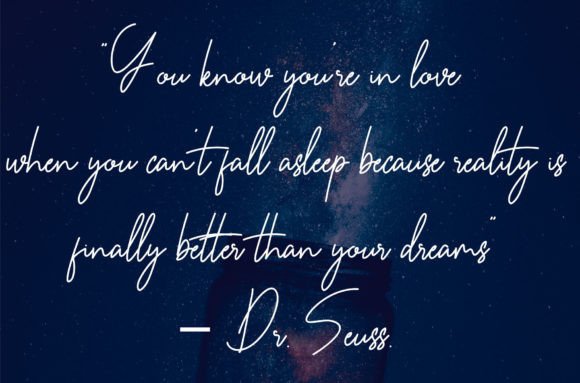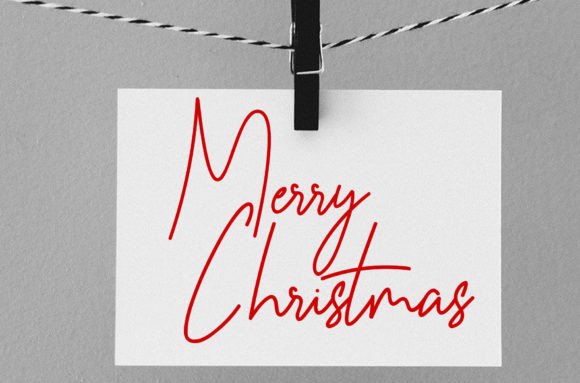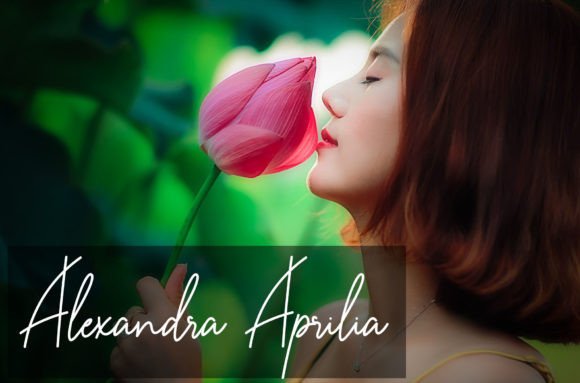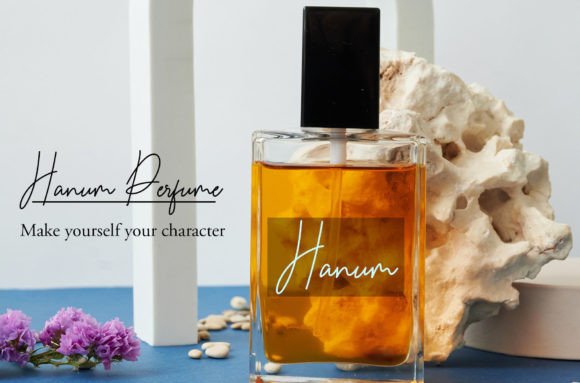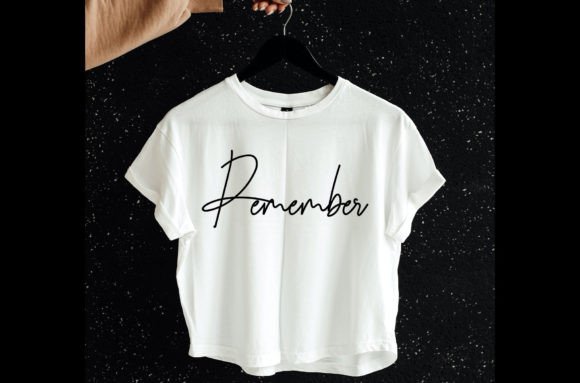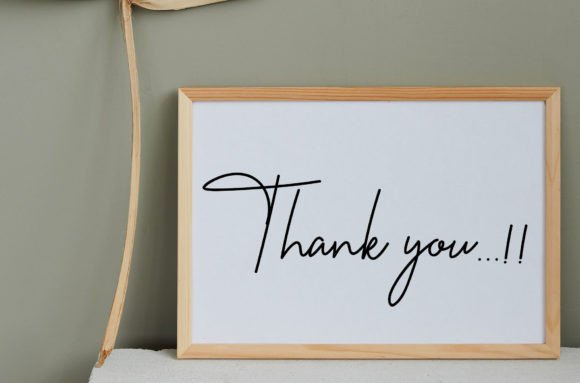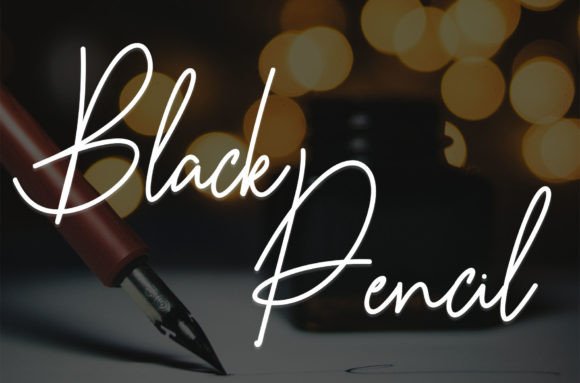
Introducing Black Pencil Font: Elevate Your Designs with Elegance
In the world of typography, a font can make all the difference in the aesthetic and feel of your designs. For those seeking a touch of elegance and sophistication, the Black Pencil Font is an exceptional choice. This graceful, modern calligraphic font is designed to bring a beautiful rhythm to your creations, making it perfect for a wide range of projects.
The Beauty of Black Pencil Font
Black Pencil is not just any font; it’s a modern calligraphic masterpiece that exudes class and sophistication. Its design is characterized by fluid lines and a harmonious flow, which gives it a unique, elegant feel. This font is meticulously crafted to ensure that every letter, every word, and every sentence flows smoothly into the next, creating a visually appealing text that captures the eye.
Whether you’re working on branding projects, crafting invitations, designing web graphics, or making cards, Black Pencil Font is versatile enough to enhance any design. Its modern calligraphic style is flexible and can be used in various contexts, from formal to semi-formal, making it a valuable addition to any designer’s toolkit.
Key Features of Black Pencil Font
- Elegant Calligraphic Style: The font boasts a beautiful, modern calligraphic look that adds a touch of elegance to any project.
- Beautiful Rhythm: The flowing design of Black Pencil Font ensures a smooth and harmonious look, making your text visually appealing.
- Versatility: Use it for a variety of projects including branding, invitations, web graphics, cards, and more.
- Easy to Read: Despite its elegant and cursive nature, Black Pencil Font remains clear and easy to read, making it suitable for both headings and body text.
- Modern Aesthetic: The font’s contemporary design ensures that your projects look modern and up-to-date.
Uses of Black Pencil Font
The versatility of Black Pencil Font makes it suitable for a multitude of design projects. Here are some of the best ways to utilize this elegant font:
- Branding Projects: Create memorable and sophisticated brand identities with Black Pencil Font. It’s perfect for logos, business cards, and letterheads.
- Invitations: Whether it’s a wedding invitation, a birthday party invite, or any other special occasion, this font adds a touch of class and elegance.
- Web Graphics: Enhance your website’s visual appeal with Black Pencil Font. Use it for headings, banners, and other graphic elements to give your site a modern and stylish look.
- Cards: From greeting cards to thank you cards, Black Pencil Font can help you create beautiful and heartfelt messages.
- Advertising: Use this font in your ad designs to make them stand out with a sophisticated and elegant look.
Tips for Using Black Pencil Font Effectively
To get the most out of Black Pencil Font, consider the following tips:
- Pair with Simple Fonts: For optimal readability, pair Black Pencil Font with simpler, sans-serif fonts for body text.
- Use for Headings and Titles: Take advantage of the font’s elegant look by using it for headings, titles, and key messages.
- Adjust Letter Spacing: For better readability, especially in longer texts, slightly increase the letter spacing.
- Experiment with Colors: While the font itself is black, don’t be afraid to experiment with different colors to match your brand’s palette or the theme of your project.
Black Pencil Font is a stunning addition to any designer’s collection. Its elegant, modern calligraphic style, beautiful rhythm, and versatility make it an excellent choice for a wide range of projects. Whether you’re looking to create sophisticated branding, elegant invitations, stylish web graphics, or heartfelt cards, Black Pencil Font can help you achieve your design goals with class and poise. So, why wait? Download Black Pencil Font today and elevate your designs to new heights of elegance and sophistication.